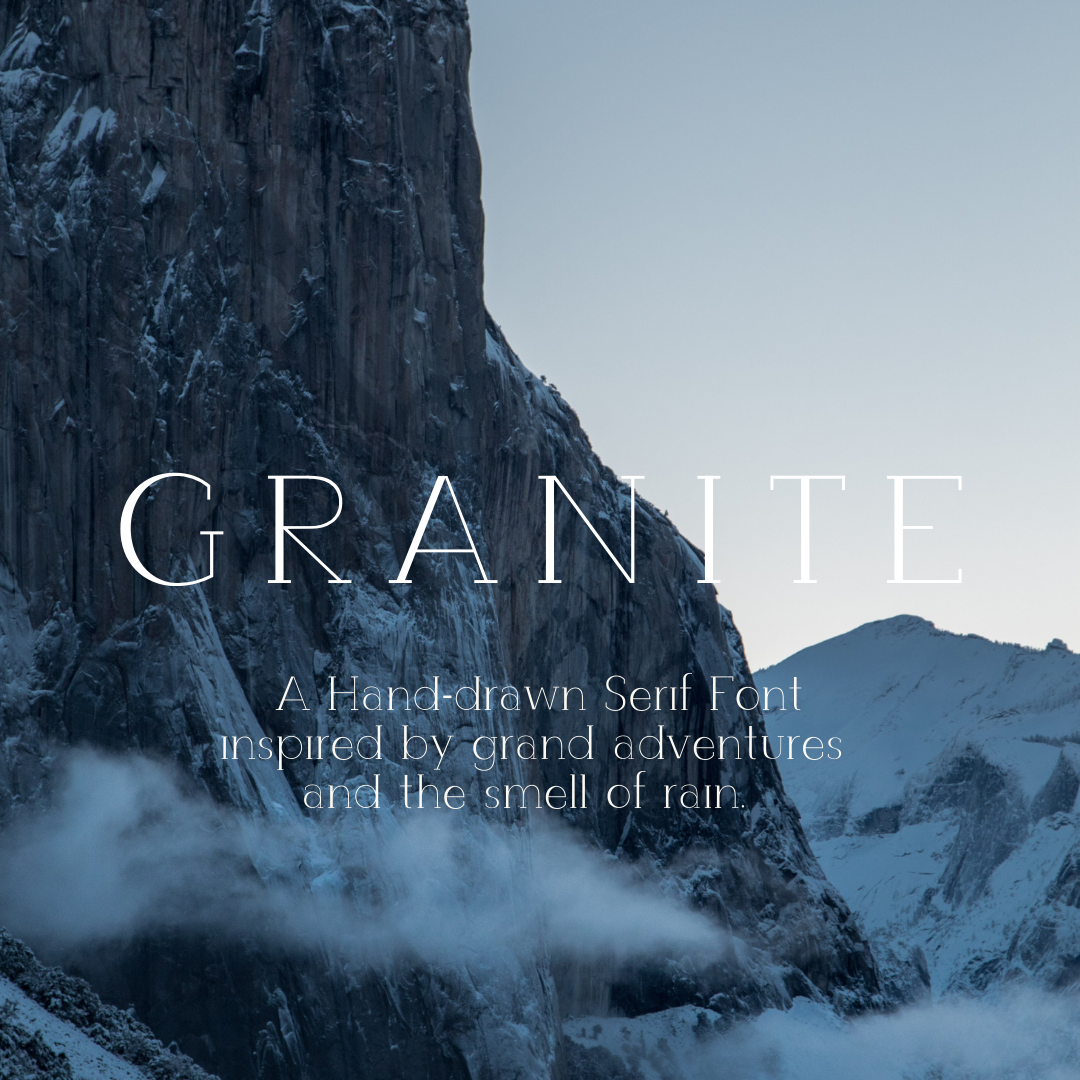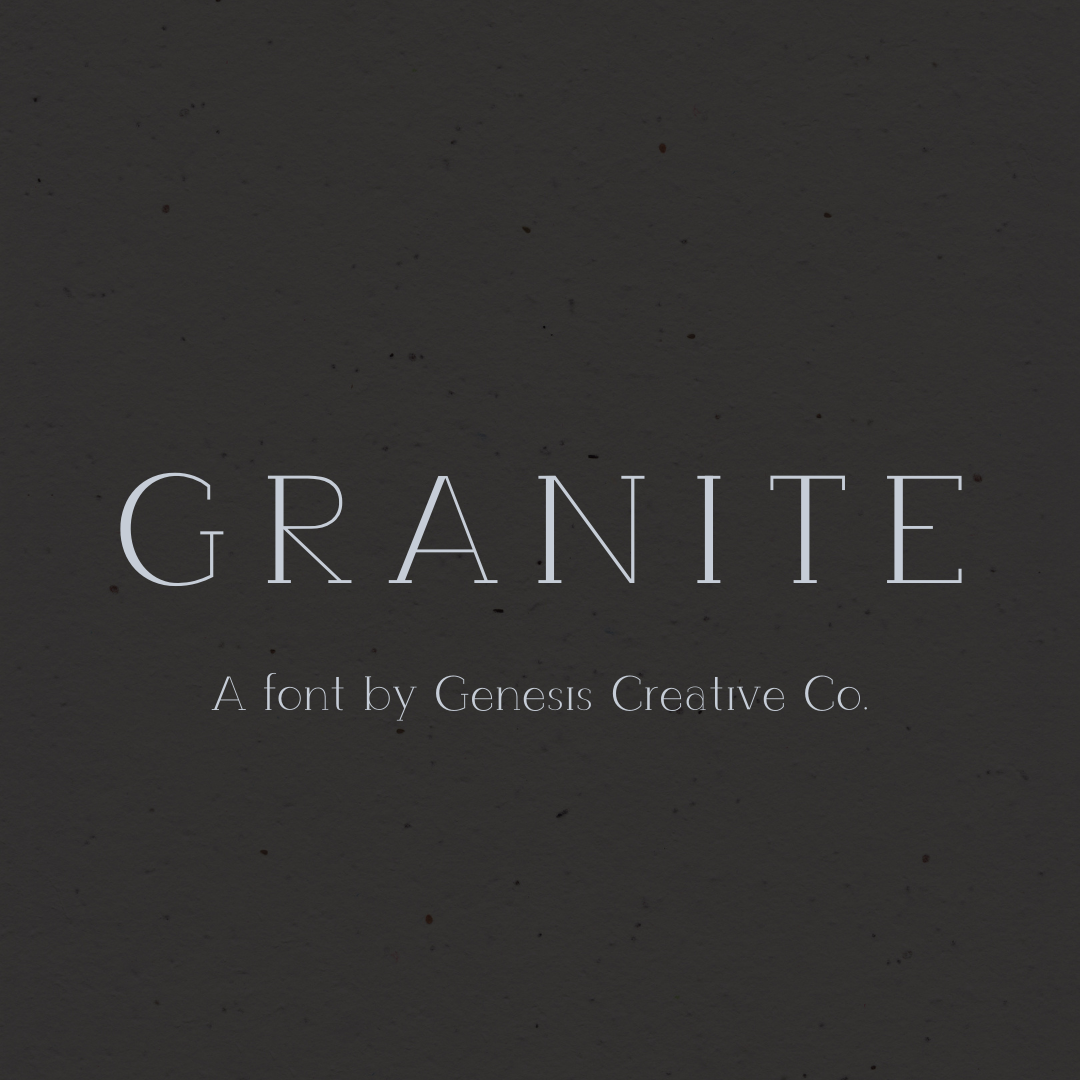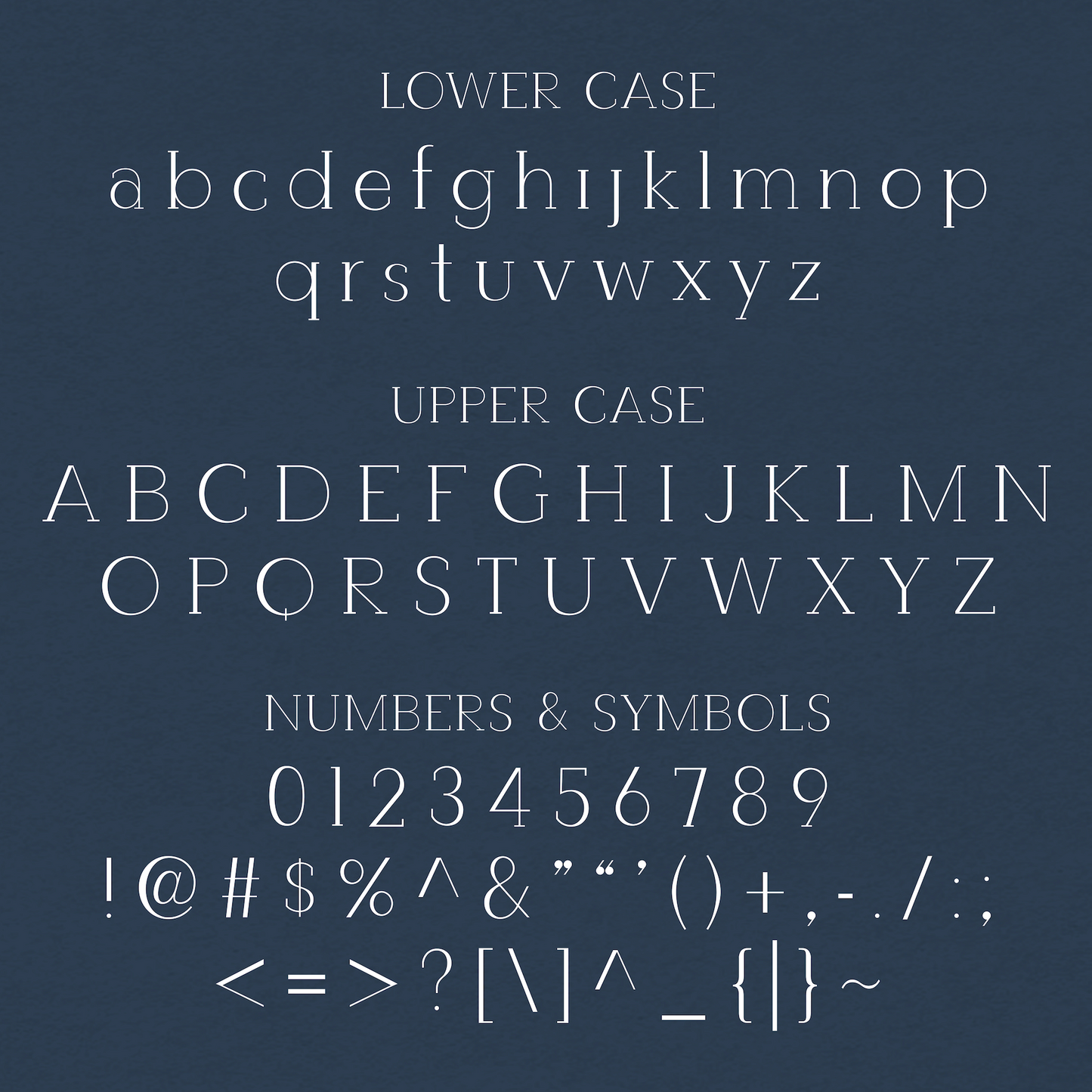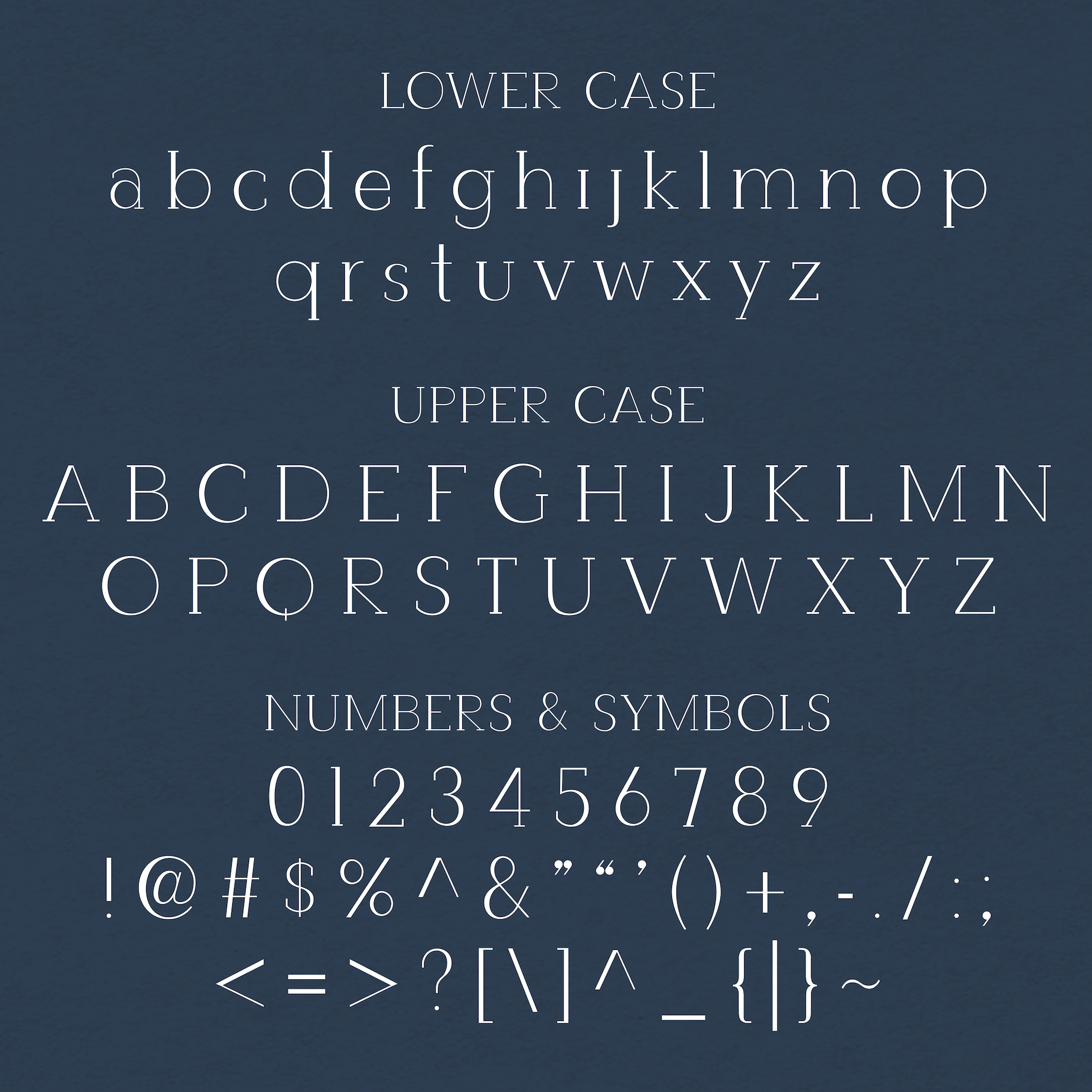
Granite Font
Granite is a bespoke, hand-drawn font. It is a rounded serif style font with an off-balanced weight. Granite is best used for headings, and pairs well with its sans-serif cousin, Saltwater (also available for purchase.)